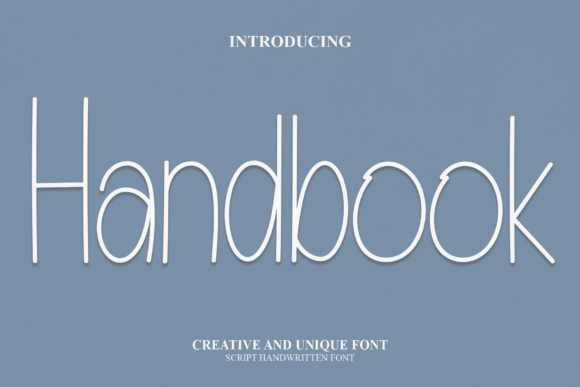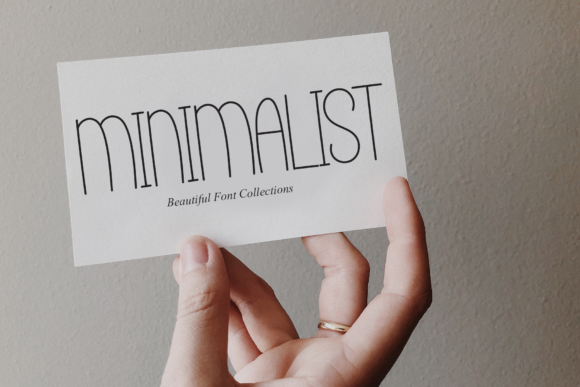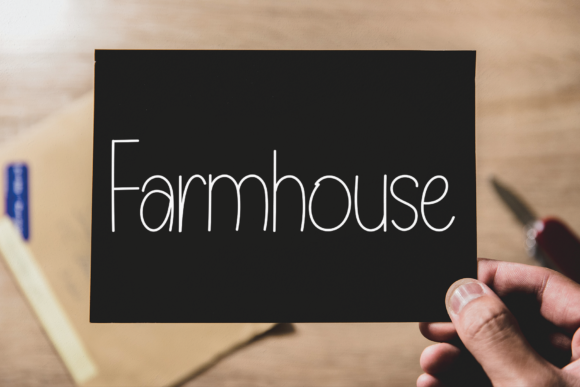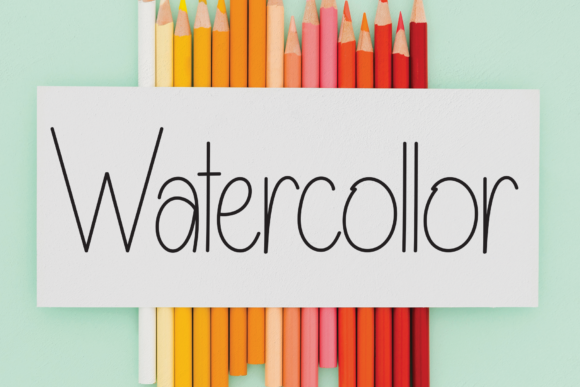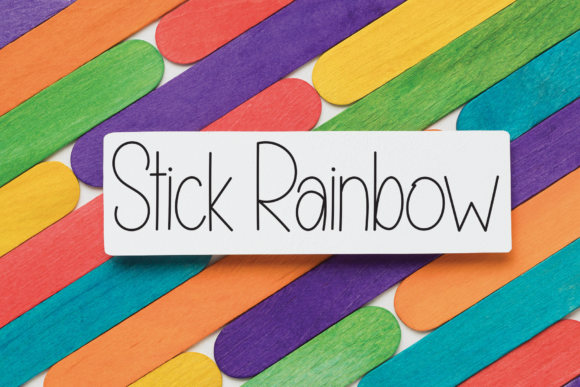
Handbook Font
About Handbook Font
Handbook is a minimalistic and neat handwritten font, perfect for perfectionists! It works great on products that need impeccable typography.